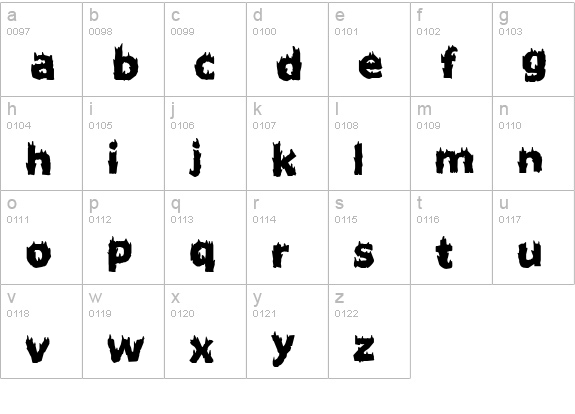
Firestarter Font Details
Introducing Firestarter font, a striking display typeface that ignites creativity and adds a spark to your design projects. With its bold and fiery letterforms, Firestarter is perfect for making a bold statement or adding a touch of intensity to your graphics. This unique font is not only visually captivating but also versatile, suitable for a wide range of design applications such as posters, headlines, branding, and more. The dynamic and energetic nature of Firestarter font will set your designs ablaze and captivate your audience's attention. Best of all, Firestarter font is available for free download at FontsMarket.com, making it easily accessible for designers looking to add a fiery touch to their projects without breaking the bank. Don't miss out on the opportunity to set your designs on fire with Firestarter font!